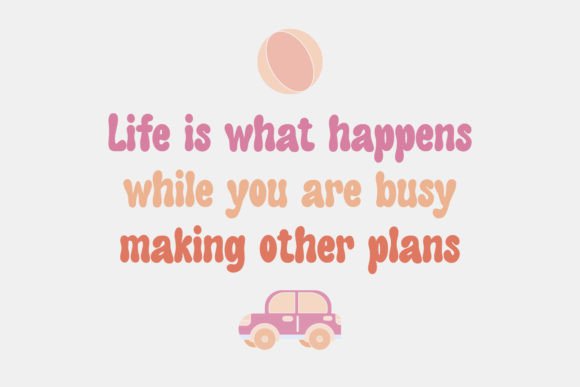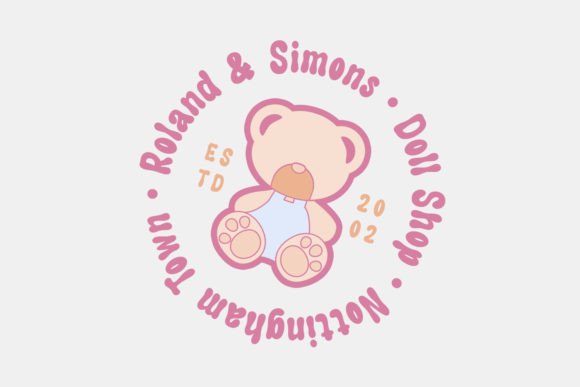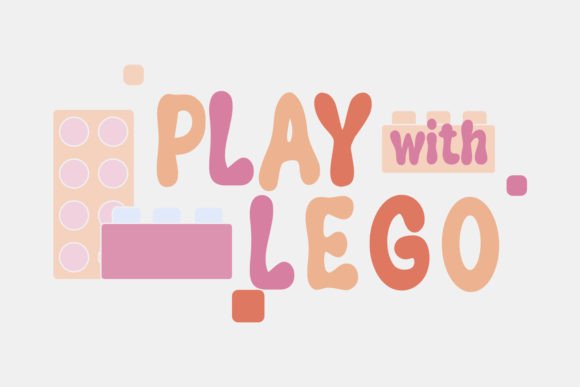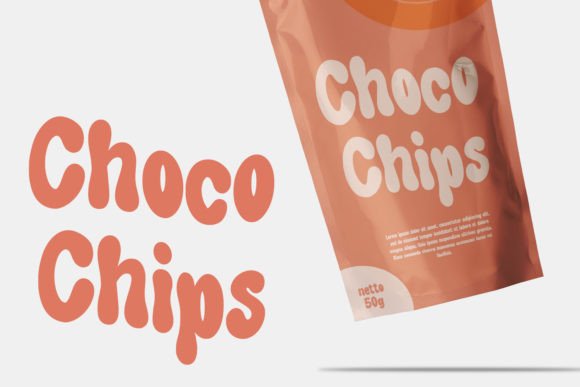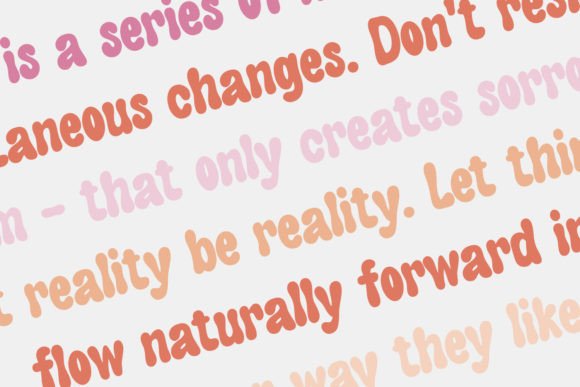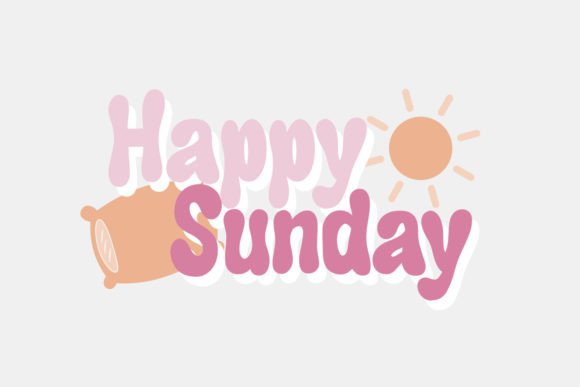
Introduction to Molly Hugs Font
Finding out an attractive font for your project design can be such hard work as you take risks of either losing your clients or killing your good reputation once you pick the wrong font.
However, Molly Hugs is the right solution for you It is a rounded display font to add warm, fun character touches to every design.
Key Features of Molly Hugs Font
Why Choose Molly Hugs Font?
Molly Hugs Font offers exceptional quality and versatility, making it a valuable addition to your design toolkit. Whether you’re creating for personal projects or commercial use, Molly Hugs Font delivers professional results.